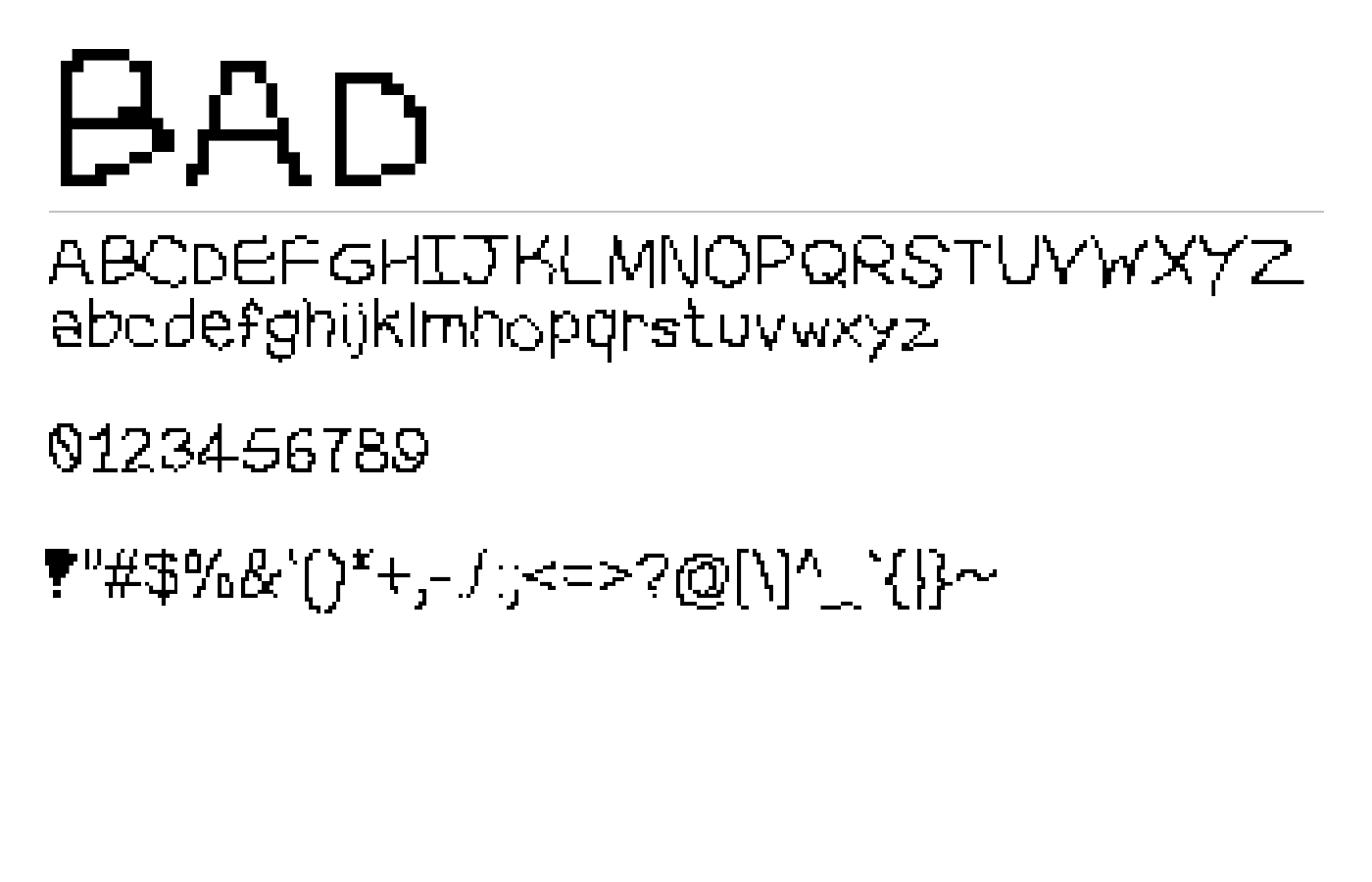
BAD Font is a pixel-inspired sans serif typeface that captures a retro, digital aesthetic with its blocky, monospaced letterforms and sharp, squared edges. Its bold, rigid structure and even stroke weight make it ideal for use in video game graphics, tech branding, or any design evoking a nostalgic 8-bit or early computer feel. This font works best in headlines, logos, and digital displays where its distinctive, vintage pixel style can stand out clearly.
BAD Font